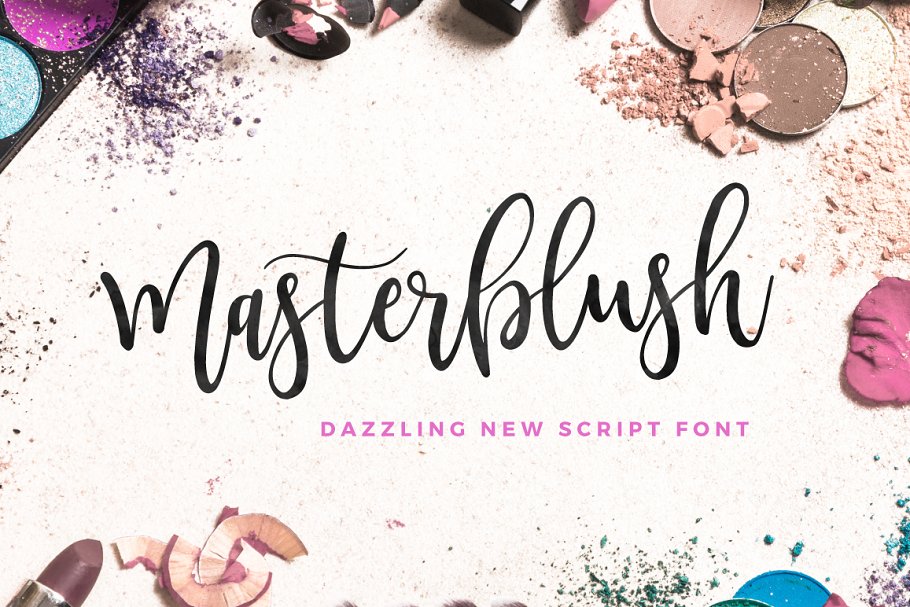
Introducing Masterblush Font, the ultimate script font designed by Mats-Peter Forss. Masterblush Font is a trendy typeface that features perfect snap-perfect characters, start and end swashes, and alternate characters that give it a unique and authentic handmade look.
With at least two start and end swashes for each lowercase character, you can even use them as swooshes to create stunning modern designs like ads, sales, logos, branding, posters, social media text overlays, and more! Masterblush Font includes a total of 3 fonts, including Masterblush Script and Alt (2 fonts) and Masterblush Swashes (1 font).
Not only is Masterblush Font visually stunning, but it is also extremely easy to use, making it a perfect choice for both beginners and professionals. Its wide language support and punctuations allow for unlimited creativity and unlimited number of projects.